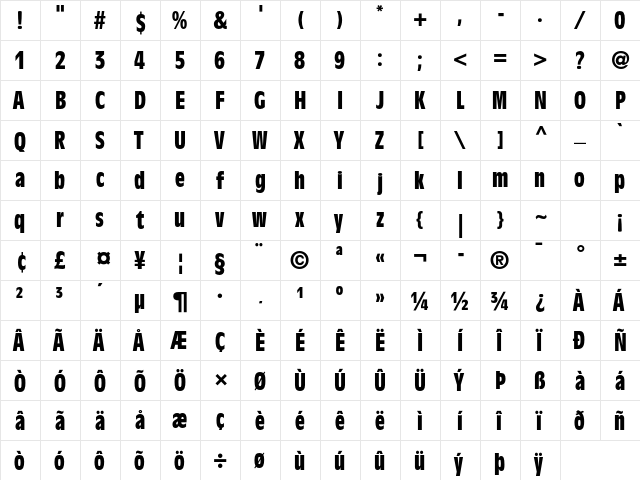
Antique Olive Std Bold Condensed
| Designer | Roger Excoffon |
Design Context for Antique Olive Std Typeface
Antique Olive Std has the warm character of retro typography — evoking diners, record sleeves, and the golden age of print advertising. The heavy weight commands attention and anchors typographic hierarchies.
Perfect for vintage-inspired branding, retro packaging, nostalgia campaigns, and period-accurate editorial design.
Font Pairing: Combine Antique Olive Std with a simple slab or neutral sans — period-accurate companions reinforce the vintage feel without competing for attention.
Pro Tip: Use Antique Olive Std for headlines and pull quotes rather than body copy — its personality is best appreciated in short, focused bursts.